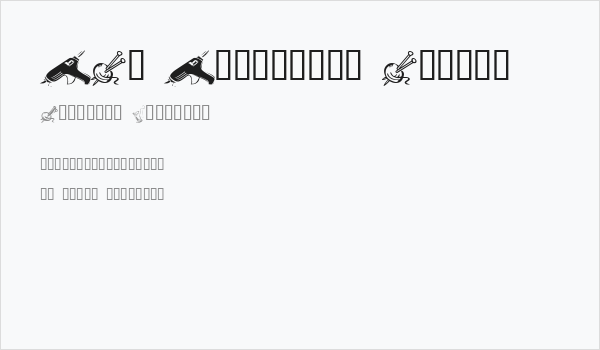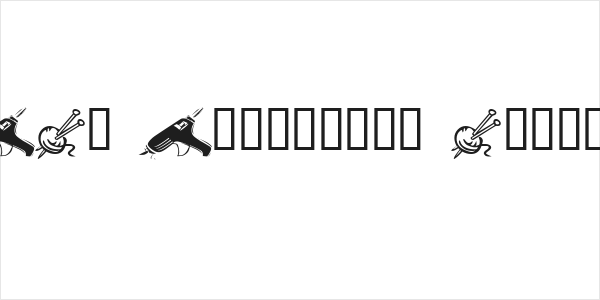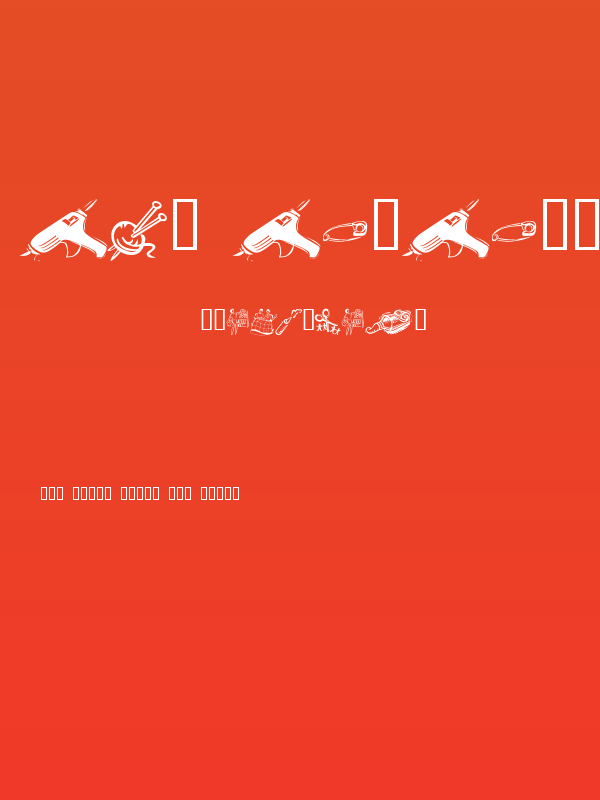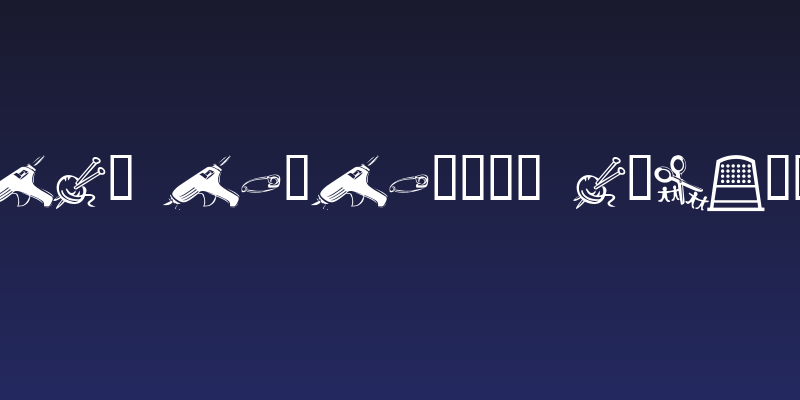
LCR Lesley's Crafts Font
This font is a decorative and playful typeface that incorporates elements of crafting and DIY aesthetics. Each character is uniquely designed to resemble various crafting tools and materials, creating a whimsical and artistic appearance. The font features a mix of bold and intricate lines, with each letterform integrating illustrations of items like scissors, buttons, and sewing machines. This creative approach makes it stand out as a thematic font, perfect for projects that require a touch of creativity and fun. The overall style is both engaging and visually appealing, capturing the essence of handmade crafts.
Use CaseLogos, Headlines, Creative Projects
Proposed ProjectsIdeal for crafting blogs, DIY project labels, creative workshop flyers, and handmade product packaging.